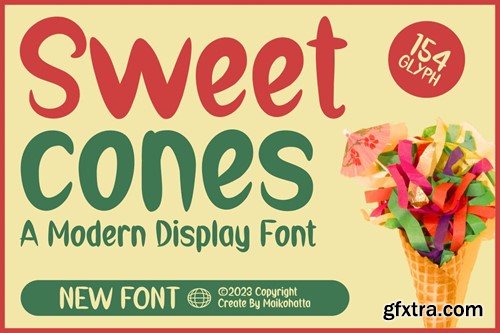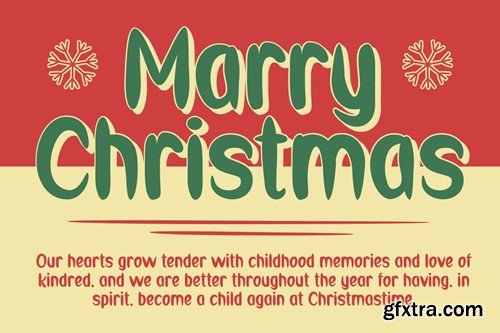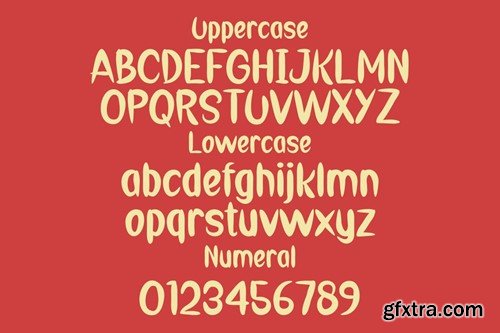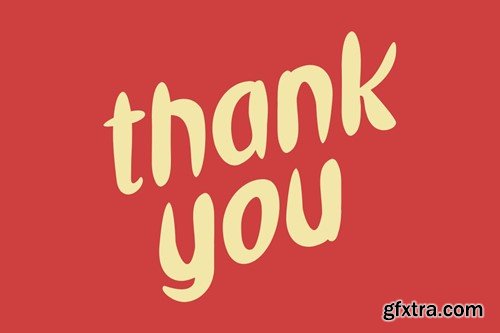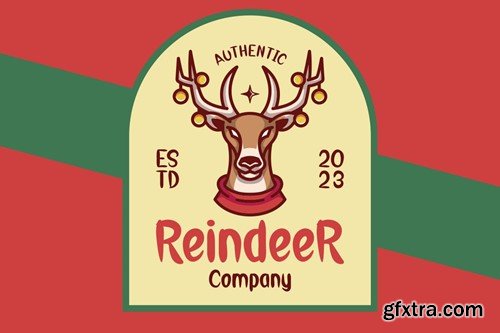
Sweet Cones - Modern Display Font
Introducing our new product Sweet Cones - Modern Display Font This font is specifically designed to create a Christmas atmosphere and mood. It is often used in graphic design, greeting cards, posters, and various other visual elements related to the celebration of Christmas. availlable